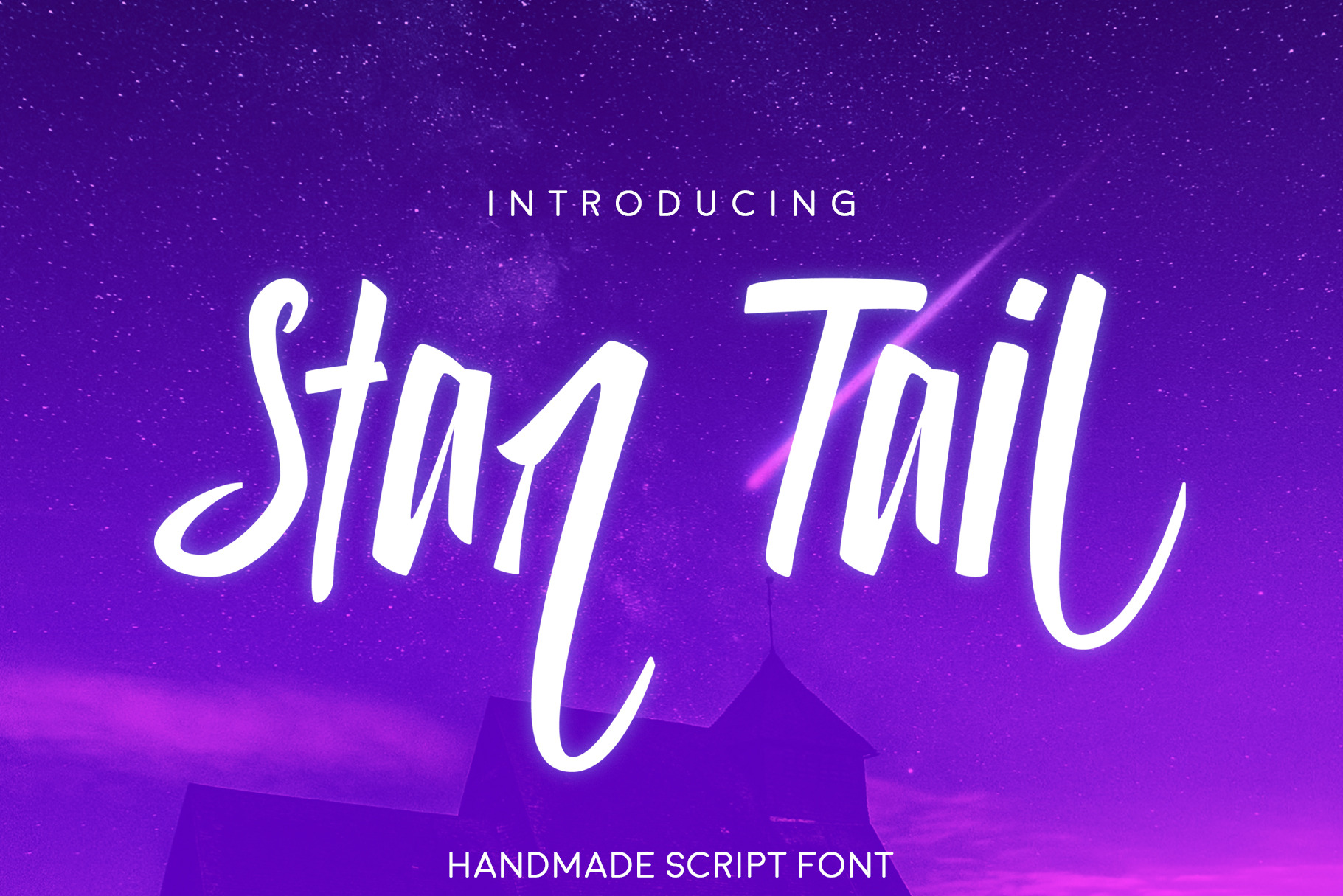
Star Tail Script Font
Hand Made Script Font "Star Tail"
Star Tail is a beautiful hand lettering font made with hand and then vectorised in Illustrator before putting it together. It is perfect for any of your project which requires a clean hand made feel.
Star tail supports lot of languages and has a plenty of international characters. Use the preview box below to test.